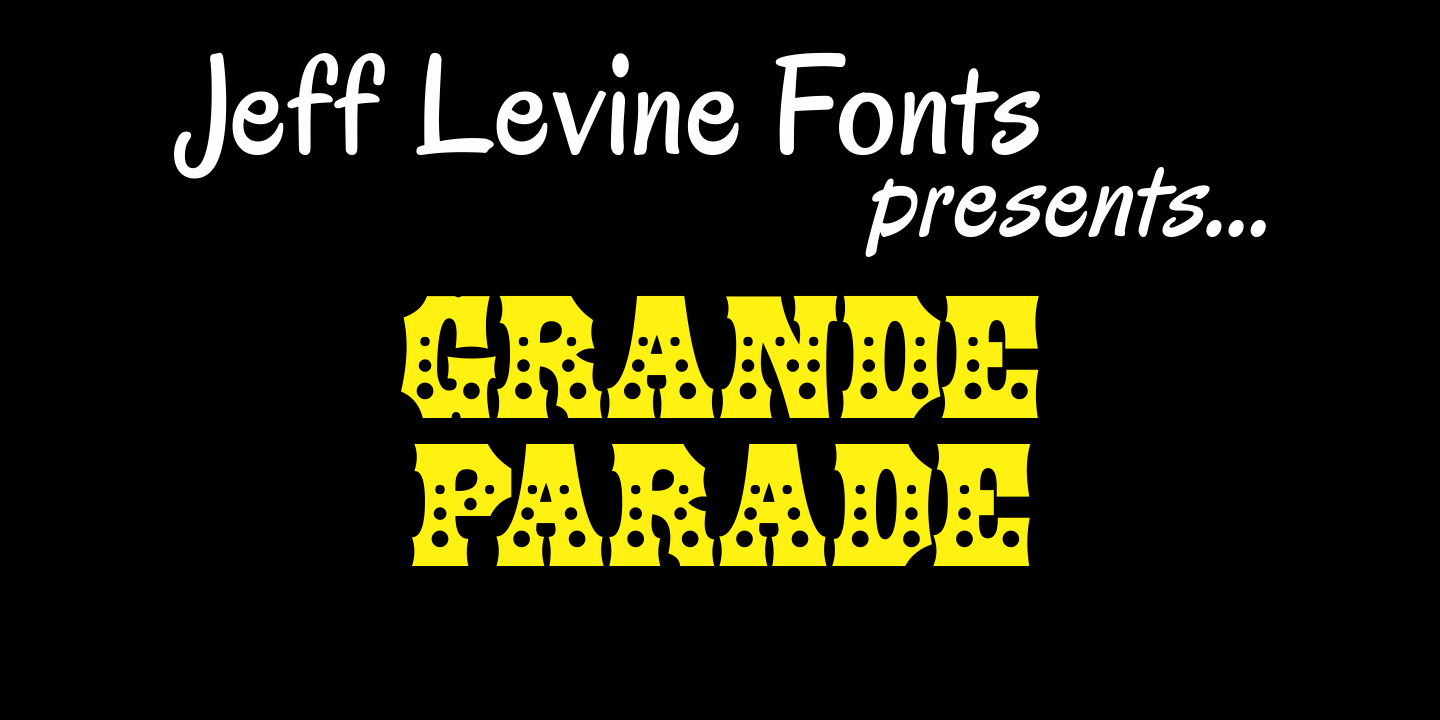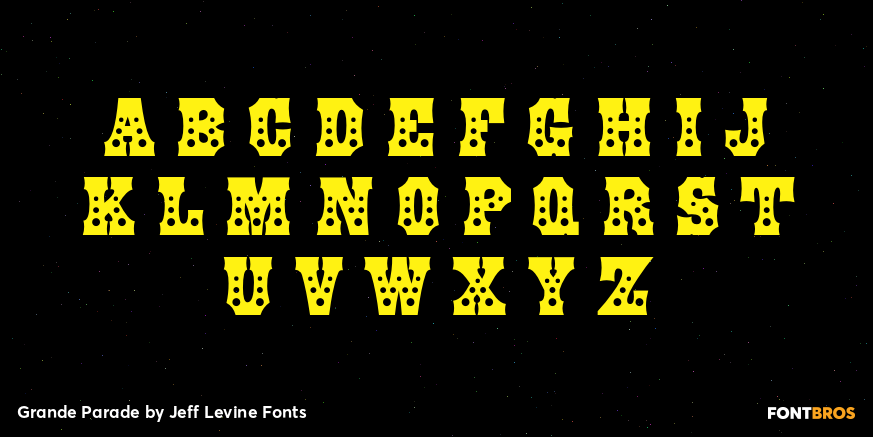
Grande Parade
Grande Parade JNL is a decorative version of Winnetka JNL, which was based on antique wood type. The look and feel of this design combines old-time typography and festive charm.